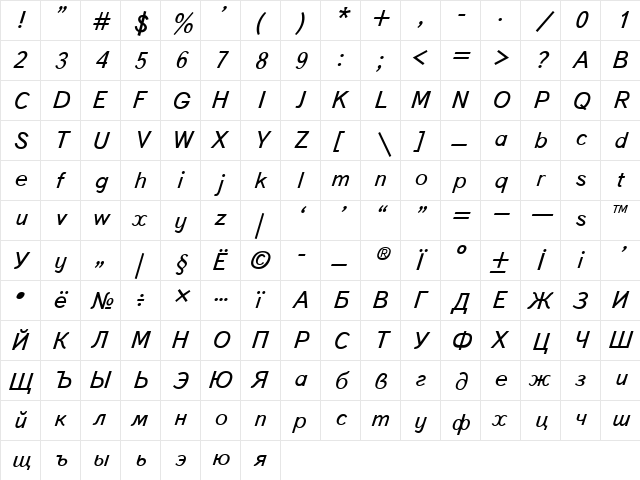
Bukvarnaya Italic
Design Context for Bukvarnaya Typeface
Bukvarnaya offers clean, dependable letterforms without strong stylistic allegiance, making it a practical choice for designers who need flexibility. The dynamic lean of this cut emphasises speed and emphasis in any layout.
Pro Tip: Try Bukvarnaya for annotation and caption copy alongside an upright companion — the contrast in angle creates a dynamic but ordered typographic system.